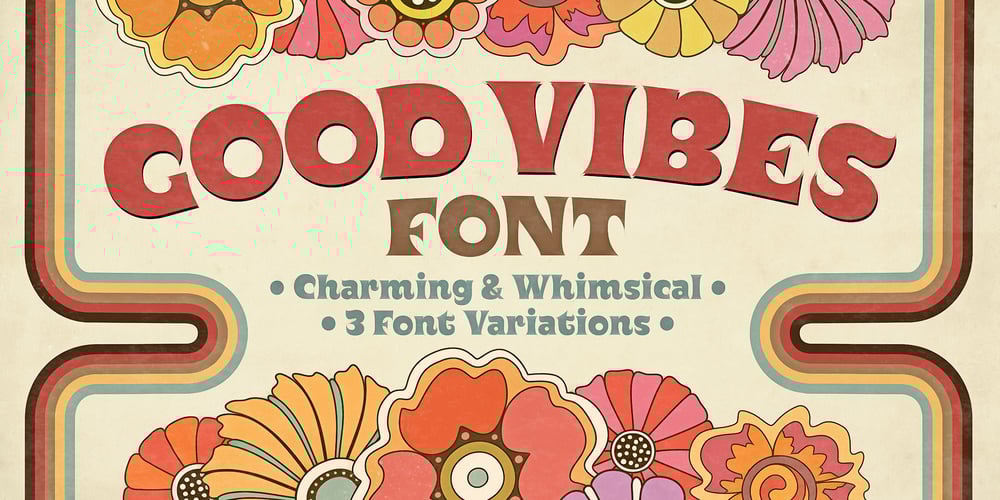
Good Vibes
Good Vibes font
Good Vibes Font Family was designed by Mott Jordan and published by Mysterylab. Good Vibes contains 3 styles and family package options. Good Vibes is a three-variation font family with a groovy retro vibe. This lettering style conjures up the early 1970s and the whimsical post-psychedelic graphic era. Stack the three styles to build different combinations of shaded and outlined layers. Good Vibes, as it’s name suggests, has a charming and lively funkiness that will add splash and pizzazz to your designs.